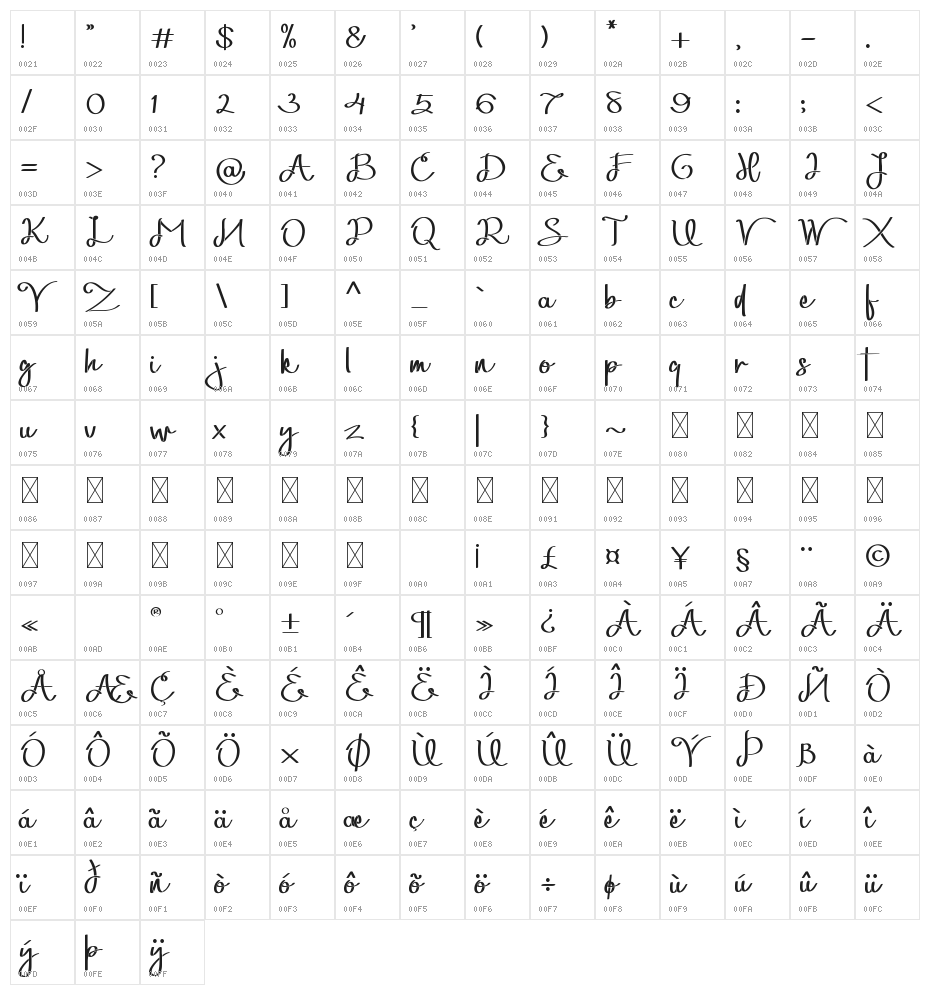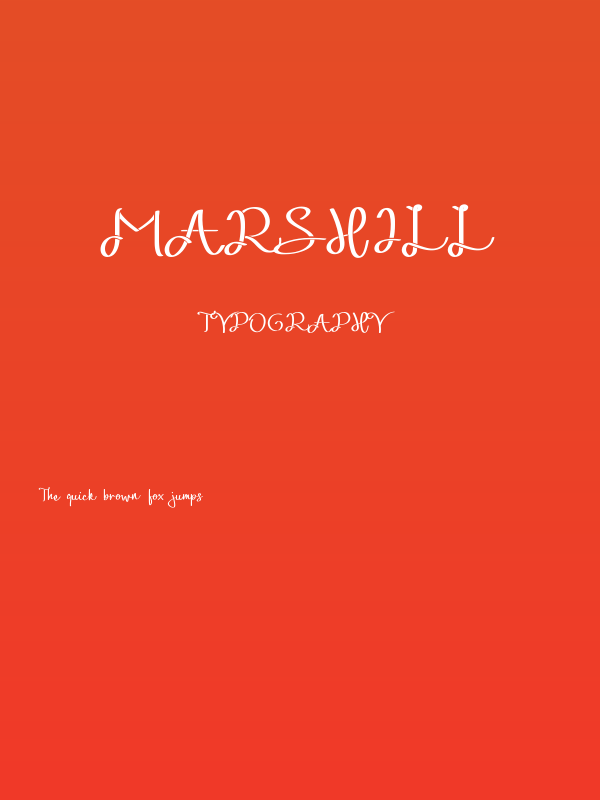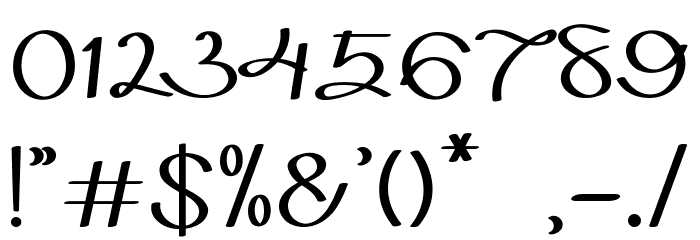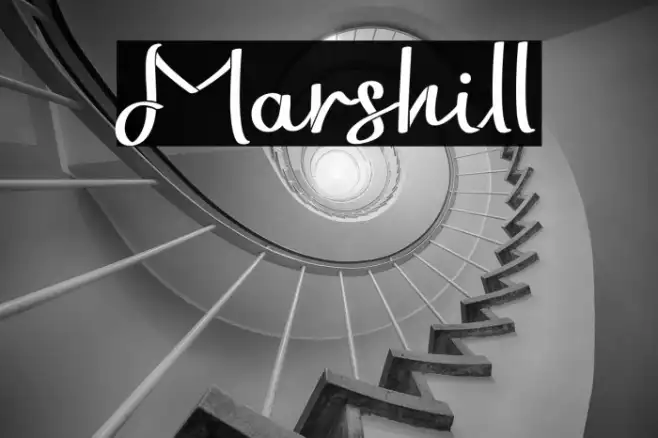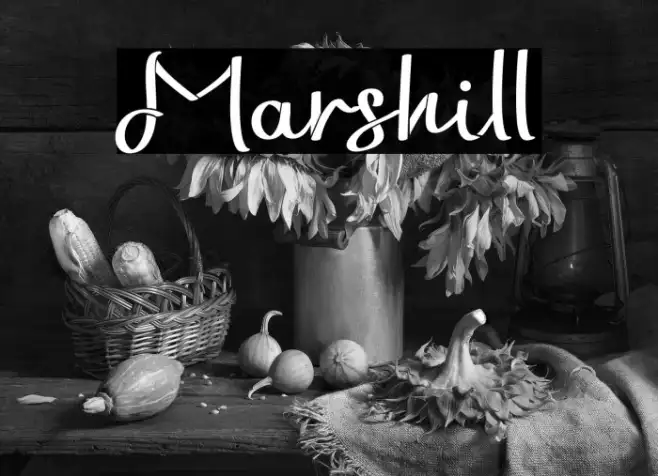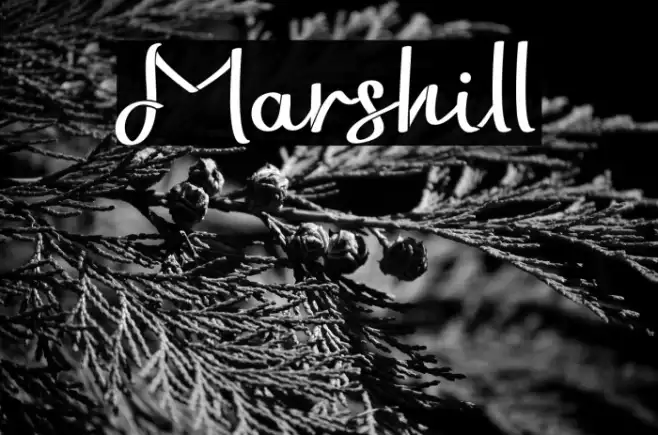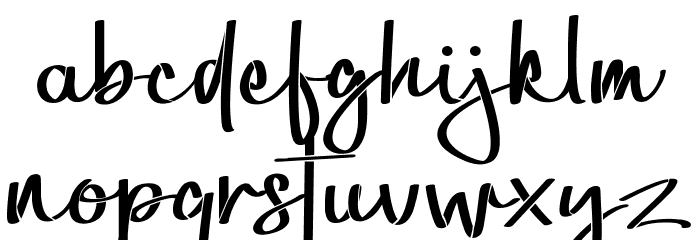
Marshill Font
Marshill Description
This font features a lively and expressive script style, characterized by its flowing, cursive letterforms. The uppercase letters are ornate, with elegant loops and swashes that add a touch of sophistication. The lowercase letters maintain a consistent rhythm, with playful curves and a slightly informal feel. The numerals are distinct and easy to read, while the special characters complement the overall design with their stylish flair. This font's dynamic and artistic appearance makes it suitable for creative projects that require a personal touch.